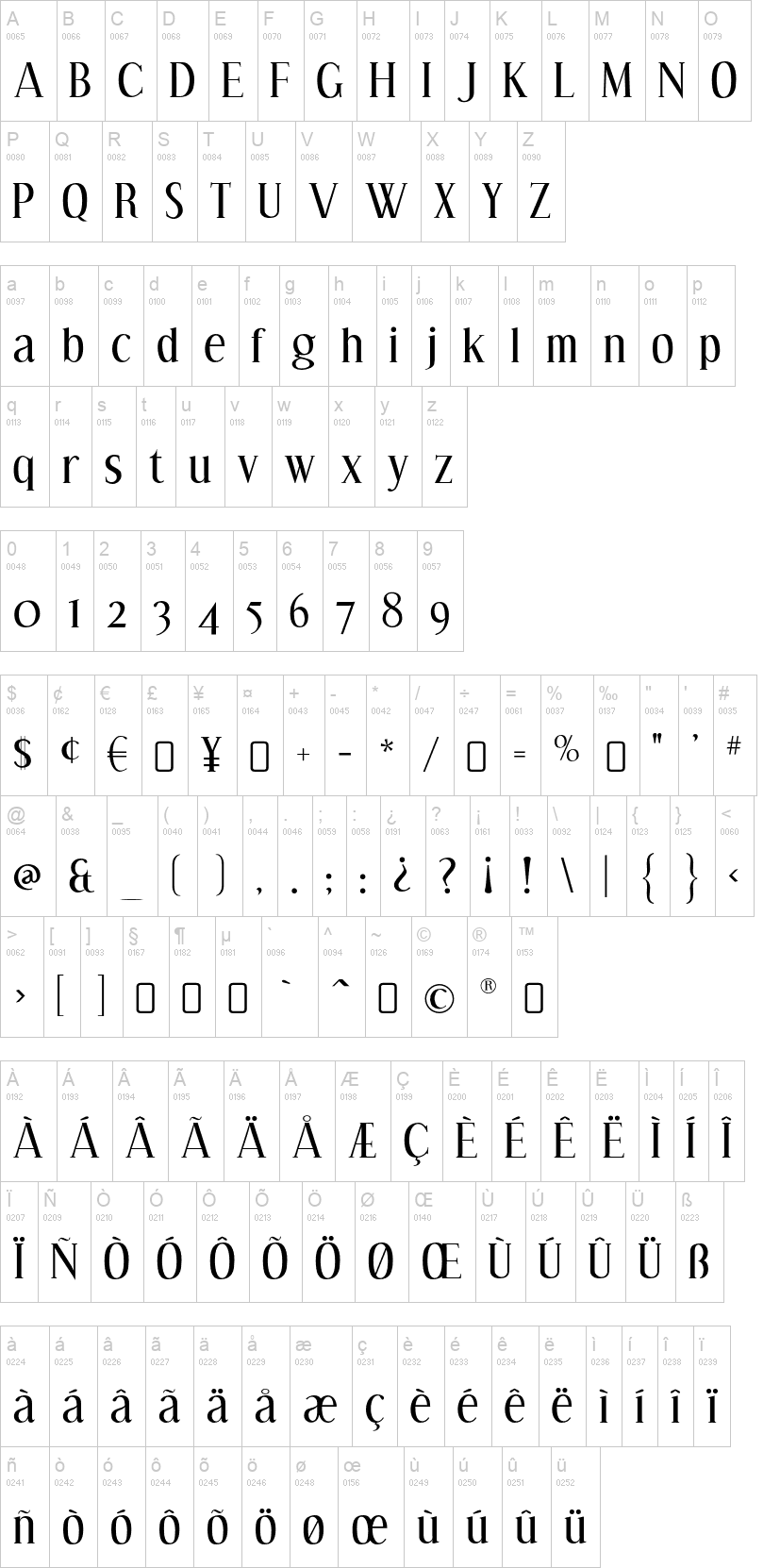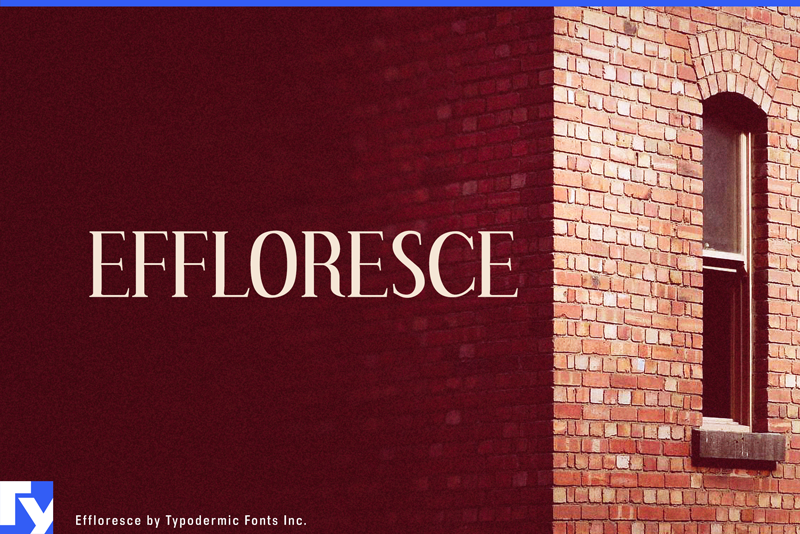
Effloresce Bd.otfEffloresce It.otfEffloresce Bd It.otfEffloresce Antique.otfNote of the authorEffloresce is a rustic, condensed display typeface with a homey feel. Its handcrafted, rural flavor will express your message in a relaxed, welcoming tone. Effloresce comes in Regular, Italic, Bold, Bold-Italic, and Antique variants. Some Latin-based European writing systems are supported, including the following languages. Afaan Oromo, Afar, Afrikaans, Albanian, Alsatian, Aymara, Basque, Bemba, Bikol, Breton, Cape Verdean, Creole, Catalan, Cebuano, Chamorro, Chavacano, Danish, Dawan, Dholuo, Dutch, English, Estonian, Faroese, Fijian, Filipino, Finnish, French, Frisian, Friulian, Galician, Genoese, German, Guadeloupean Creole, Haitian Creole, Hiligaynon, Icelandic, Ilocano, Indonesian, Irish, Italian, Jamaican, Kaqchikel, Kikongo, Kinyarwanda, Kirundi, Lombard, Low Saxon, Luxembourgish, Makhuwa, Malay, Ndebele, Neapolitan, Norwegian, Novial, Occitan, Papiamento, Piedmontese, Portuguese, Quechua, Rarotongan, Romansh, Sango, Saramaccan, Sardinian, Scottish Gaelic, Shona, Sicilian, Silesian, Slovak, Slovenian, Somali, Sotho, Spanish, Swahili, Swazi, Swedish, Tagalog, Tetum, Tshiluba, Tsonga, Tswana, Tumbuka, Uzbek (Latin), Venetian, Võro, Walloon, Waray-Waray, Wayuu, Xhosa, Yapese, Zapotec Zulu and Zuni.